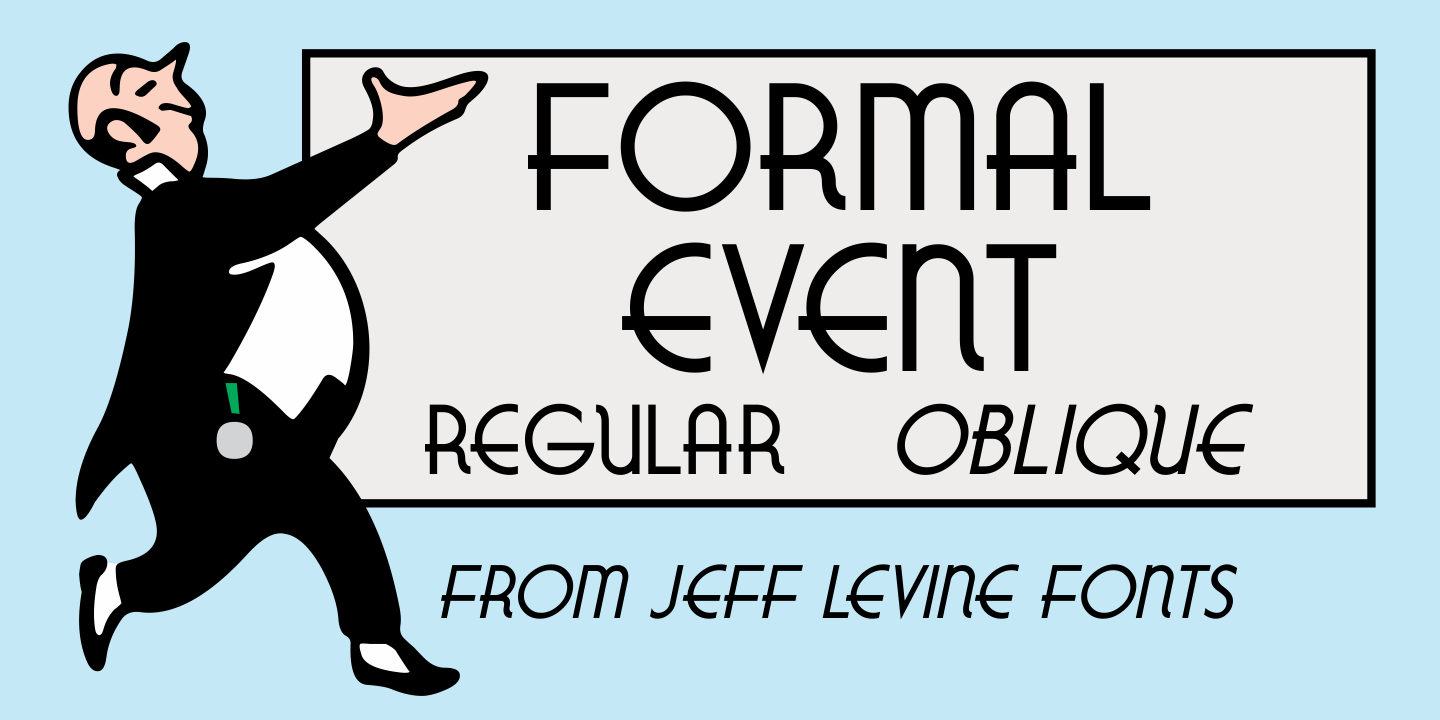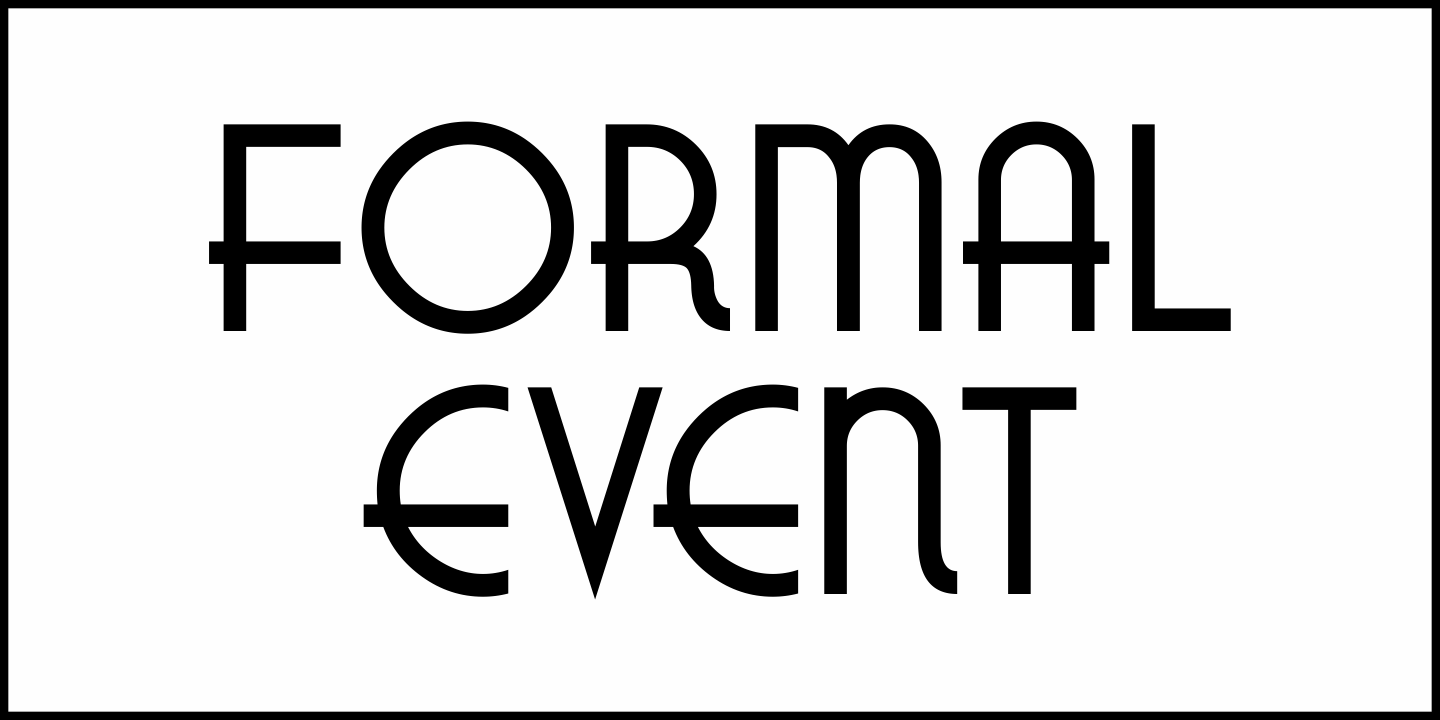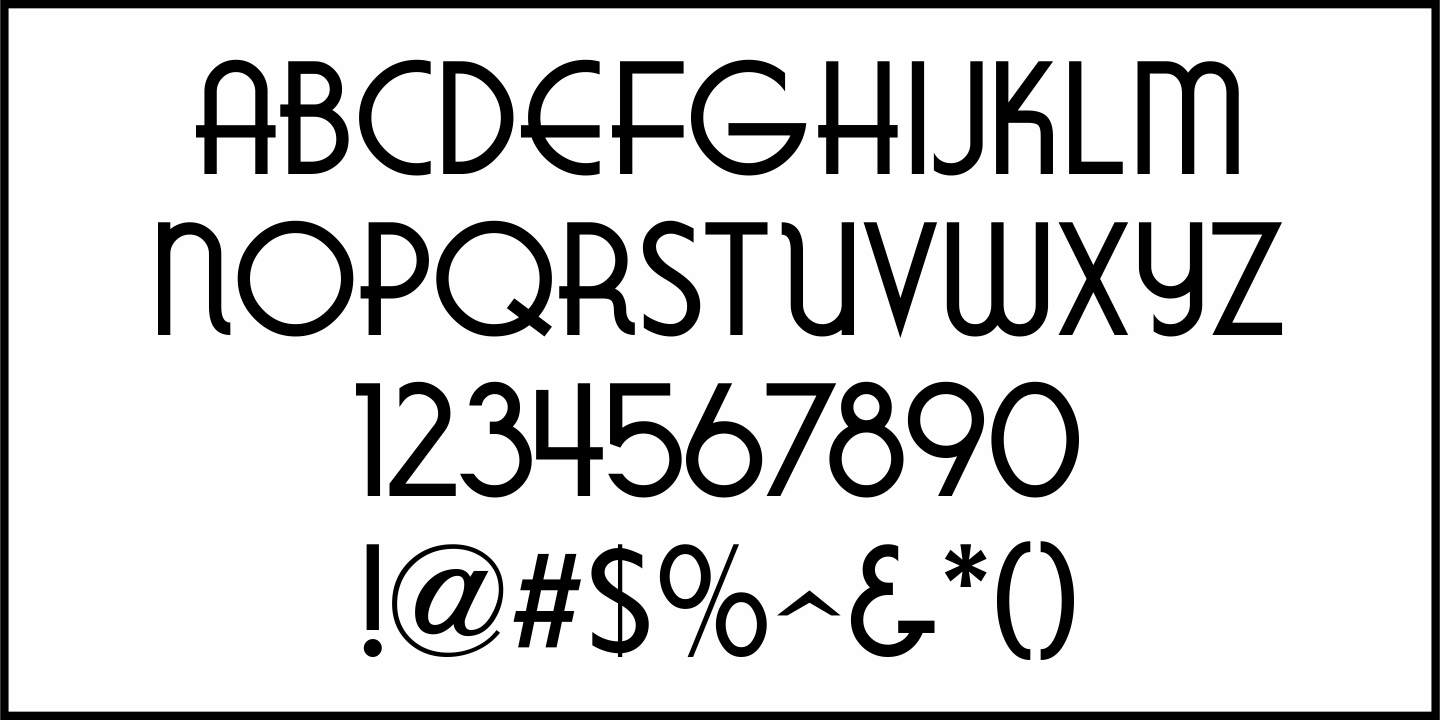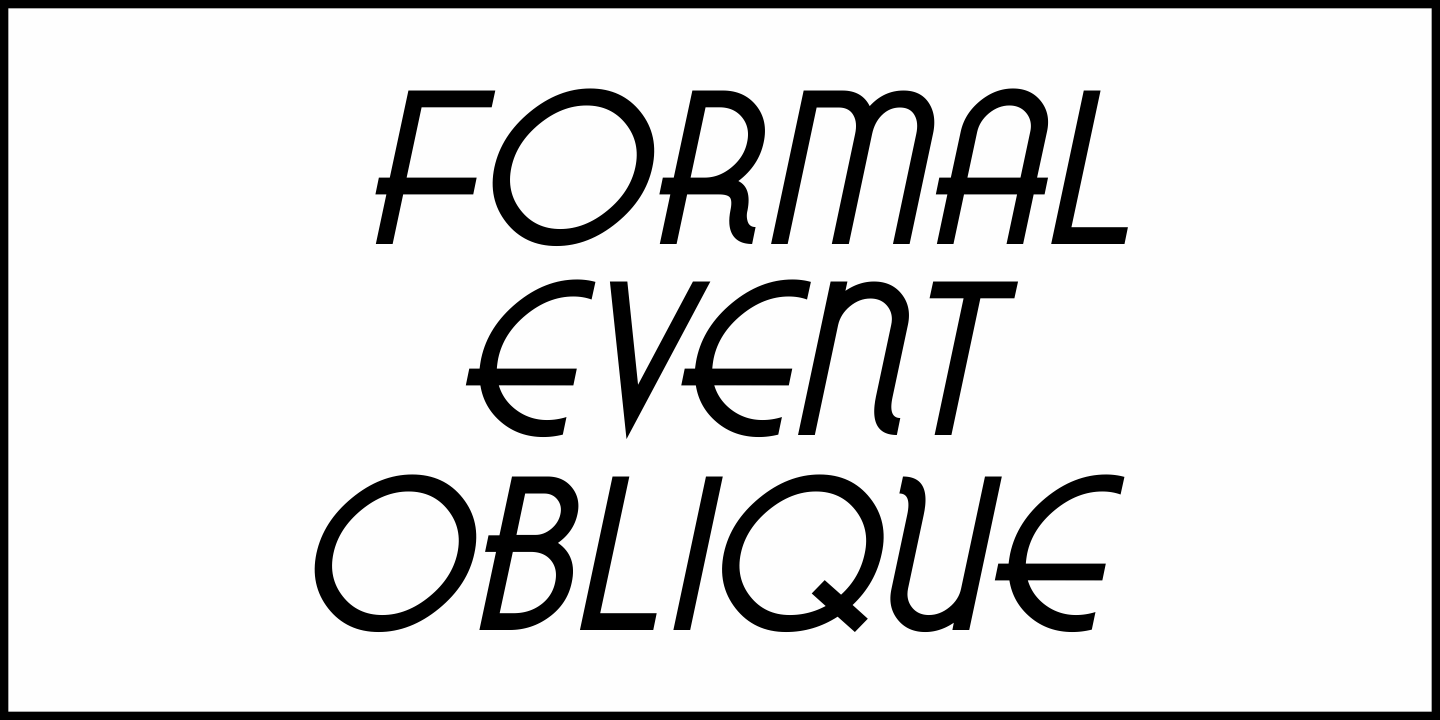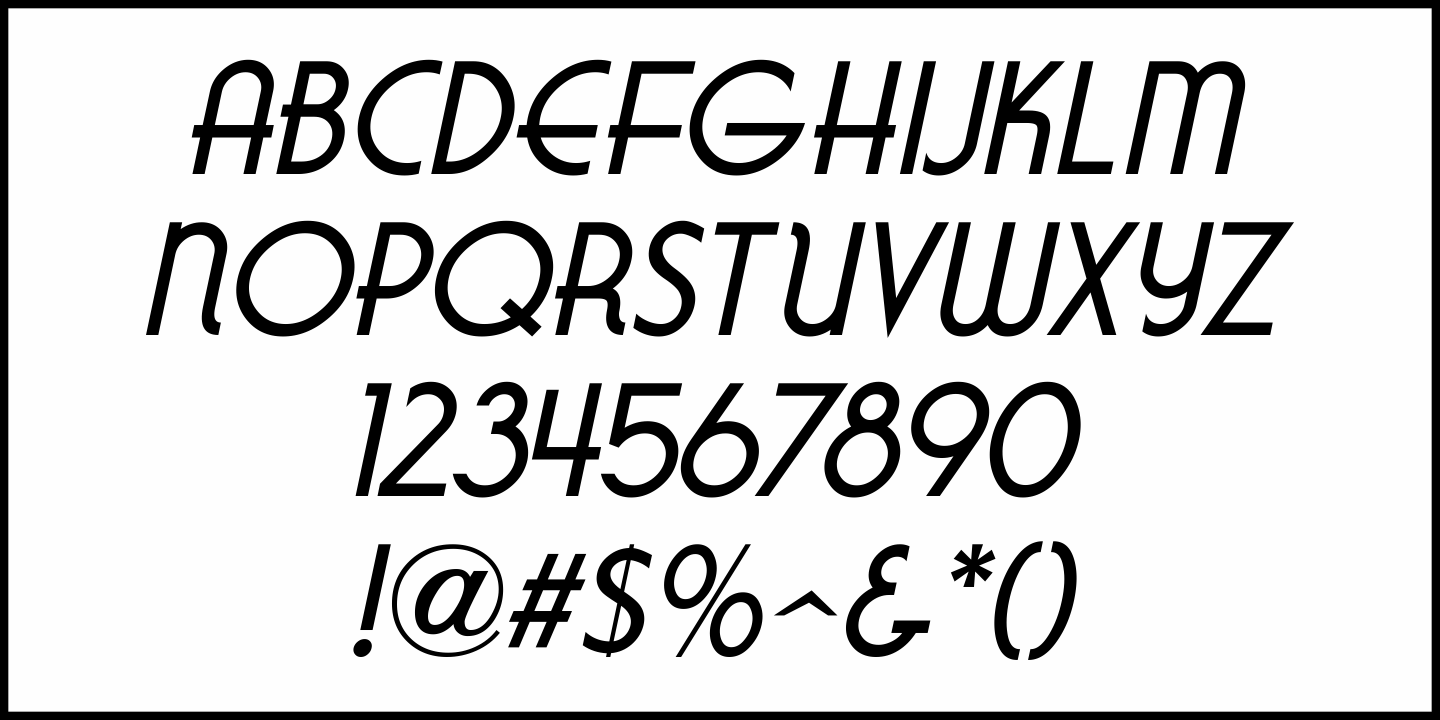
Formal Event
The hand lettered actors' credits on a title card from the 1937 film 'Shall We Dance” served as the model for Formal Event JNL – an Art Deco sans serif font available in both regular and oblique versions.
Formal Event JNL Regular by Jeff Levine Fonts